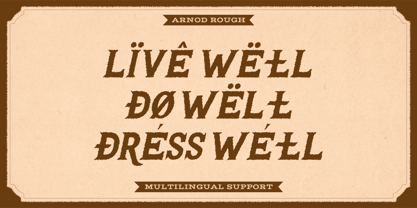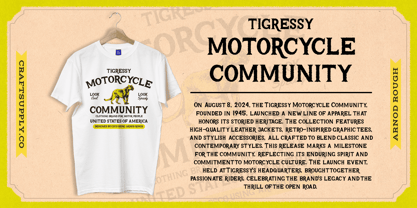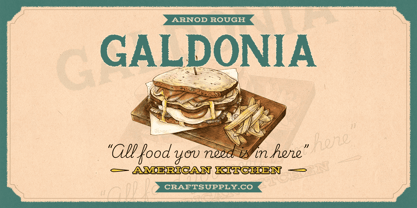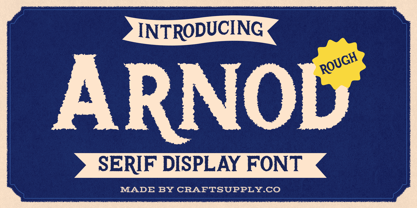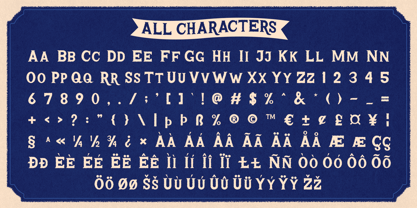
Arnod Rough
von Craft Supply Co
Die Schriftfamilie Arnod Rough wurde von Trio Nazzar Saputra, Wahyu Hadi Yuana entworfen und von Craft Supply Co veröffentlicht. Arnod Rough enthält 2 Stile und Familienpaketoptionen.
Arnod Rough Font: Bold Retro Serif with Industrial Aesthetic
Strong and Assertive Retro Characteristics
Arnod Rough is a serif font that exudes boldness with its retro masculine features. Combining strong, assertive elements with an industrial aesthetic, this font stands out with its robust and clear lines. The design emphasizes power and precision, making it perfect for projects that require a commanding visual presence.
Industrial Strength and Precision
With its industrial-inspired look, Arnod Rough showcases an aura of strength and precision. The font’s clear, defined lines contribute to a powerful impression, ideal for designs that need to convey reliability and robustness. Its industrial aesthetic enhances its suitability for a variety of applications, including branding and promotional materials.
Rugged Texture with Rough Effect
The rough effect adds an extra dimension to Arnod Rough, infusing it with a rugged, tactile quality. This texture enhances the industrial look, providing visual interest and character. The result is a font that combines the elegance of retro design with the gritty, dynamic edge of modern aesthetics.
Versatile for Bold Statements
Arnod Rough is versatile across various design contexts, from bold headlines to striking branding. Its robust form and rugged texture make it suitable for projects that aim to capture attention and make a memorable impact, such as posters, logos, and advertising materials.